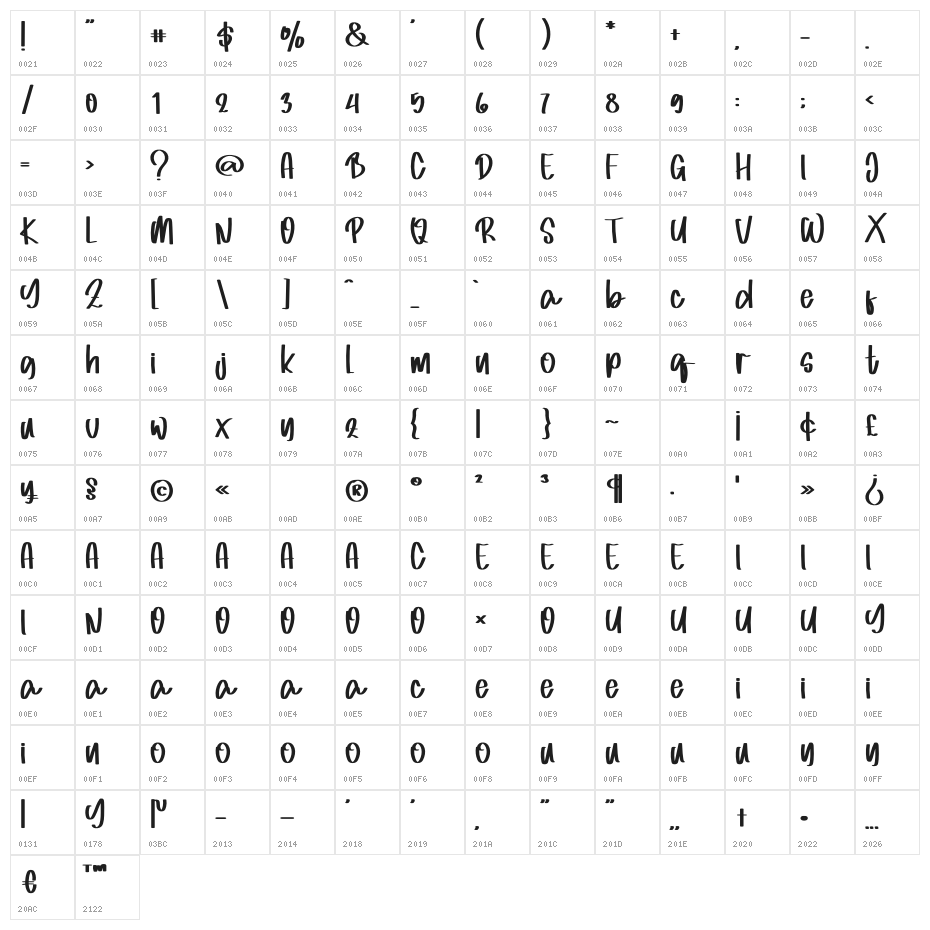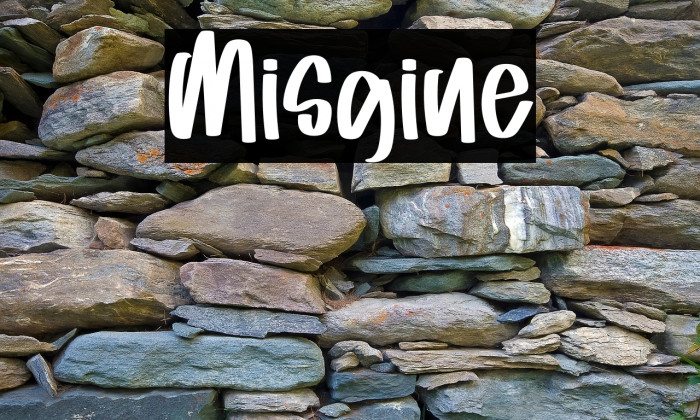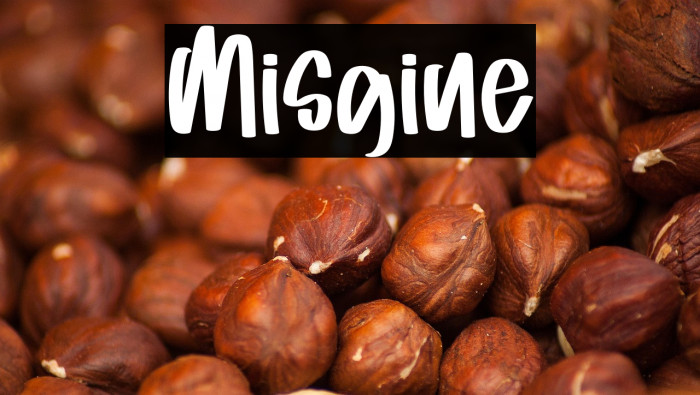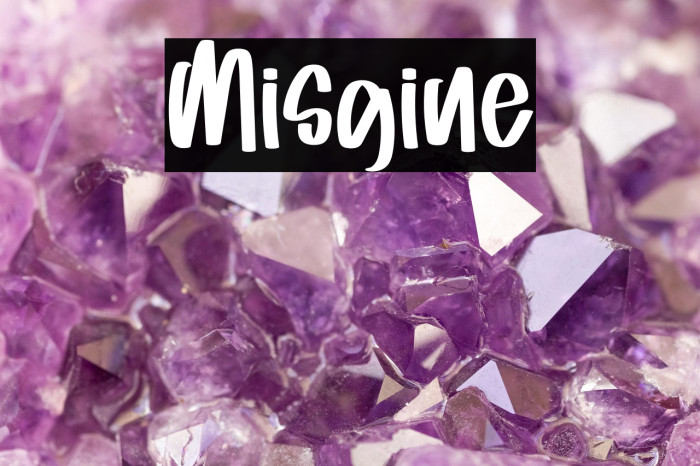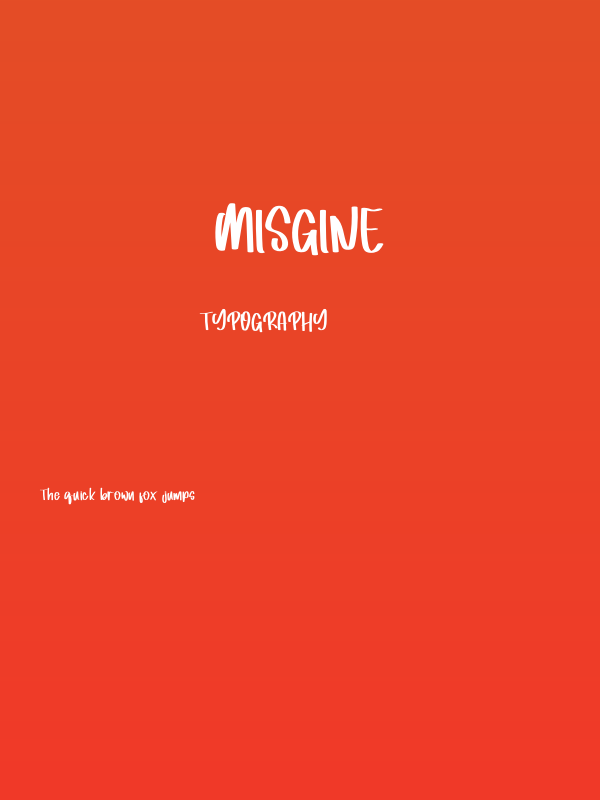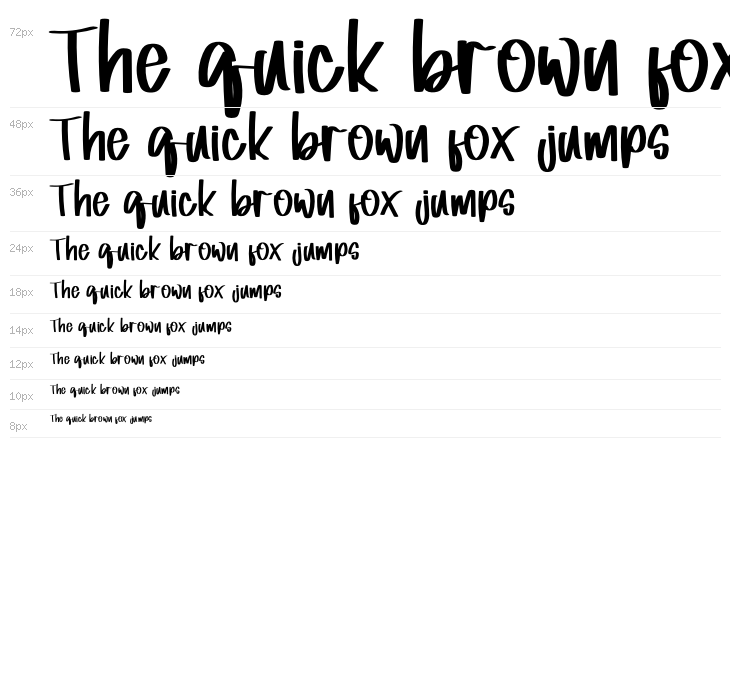
Misgine Font
Misgine Description
This font features a bold, handwritten style with a playful and energetic appearance. The letters are thick and have a slightly irregular baseline, giving them a dynamic and informal look. The uppercase and lowercase letters maintain a consistent weight, while the numbers and special characters blend seamlessly with the overall design. The strokes are smooth and rounded, adding to the font's approachable and friendly feel. This style is ideal for projects that require a personal touch or a creative flair.